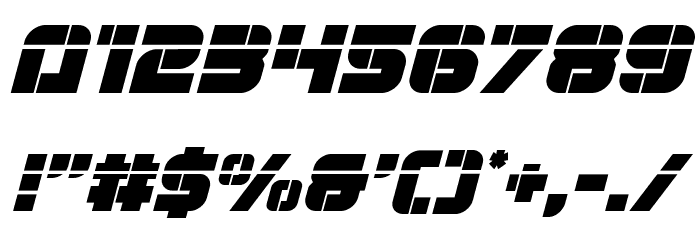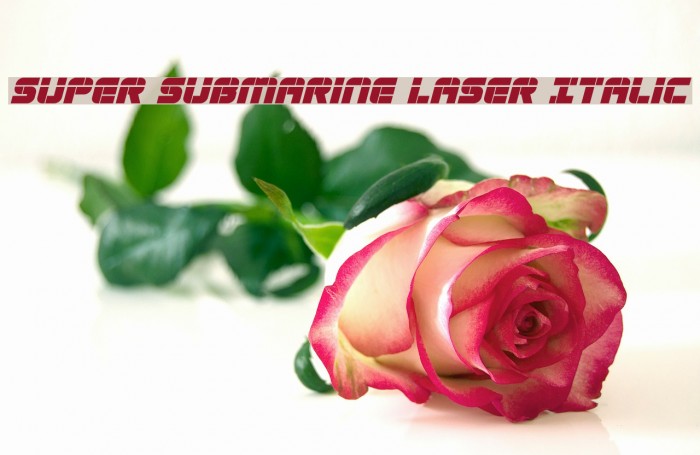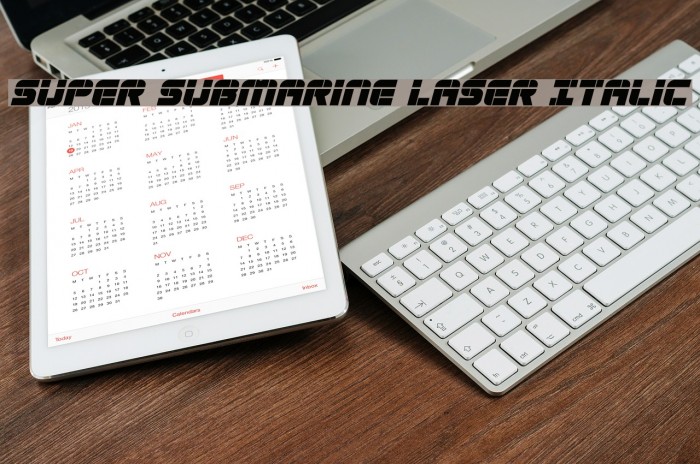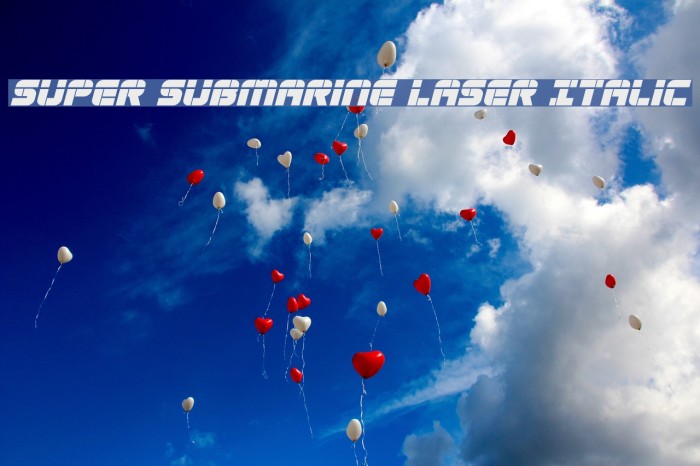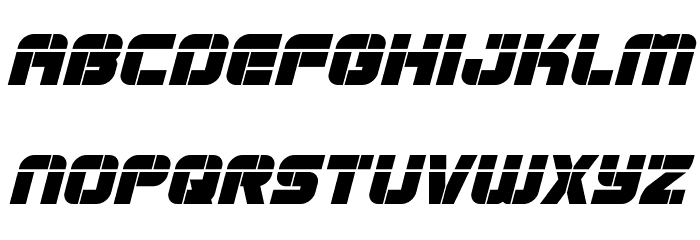
Super Submarine Laser Italic Font
This font features a bold and futuristic design with a strong emphasis on geometric shapes and sharp angles. The characters are italicized, giving a sense of motion and speed. The style is reminiscent of technology and innovation, with a sleek and modern appearance. The uppercase and lowercase letters maintain a consistent width, creating a uniform look across the text. The numbers and special characters are designed to match the overall aesthetic, with similar angular cuts and bold strokes. This font is ideal for projects that require a dynamic and cutting-edge look.
A bold, italicized font with a futuristic and geometric design.
• Proposed Projects: Ideal for technology branding, sci-fi movie posters, video game titles, and futuristic product packaging.